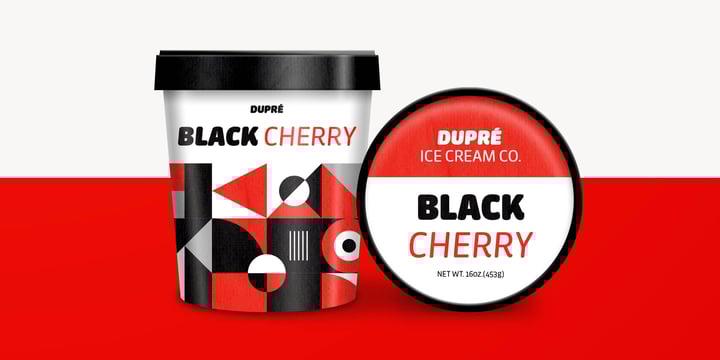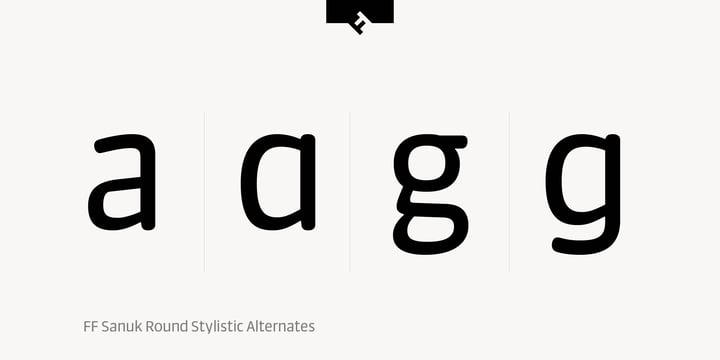
FF Sanuk™ Round
by FontFont
The FF Sanuk Round Font Family was designed by Xavier Dupré and published by FontFont. FF Sanuk Round contains 10 styles and family package options.
“The rounded shapes are like Chantilly cream or Italian meringue over a lemon pie,” says designer Xavier Dupré of his FF Sanuk Round typeface. Designed to work alongside the existing members of the FF Sanuk family, this sprightly sans serif offers a more mischievous personality than its counterparts. Angular shapes have been gently softened, to create a playful design that really comes into its own at larger sizes. Set this one on posters and packaging, or anywhere you need to be punchy yet approachable. The FF Sanuk Round family is based on the original FF Sanuk family and offers 5 weights plus from Ultra Light to Black plus italics. It offers OpenType features including stylistic alternates and ligatures.
Designers: Xavier Dupré
Publisher: FontFont
Foundry: FontFont